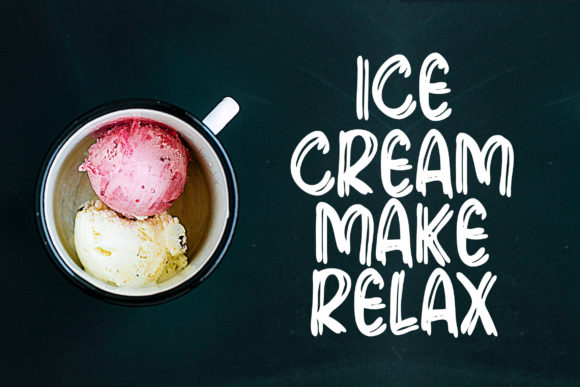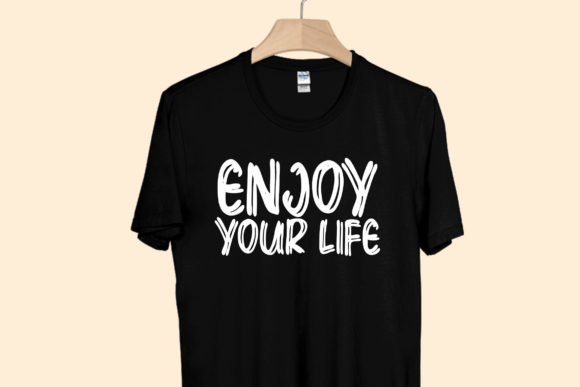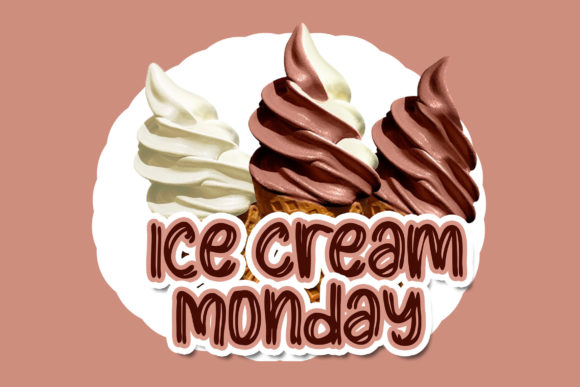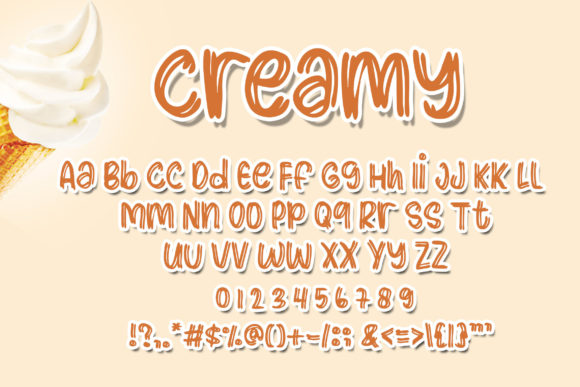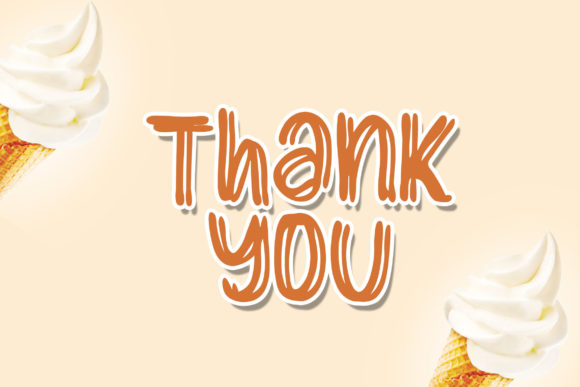
The Creamy Font: A Delicious Addition to Your Design Toolbox
I’ll never forget the time I was working on a project for a client who wanted a font that was both playful and elegant. I had spent hours scouring the internet for the perfect match, but nothing seemed quite right. That was when I stumbled upon the Creamy font, and it instantly became my go-to. In this article, I’ll share my love for this beautiful, brushed handwritten font and provide you with a comprehensive guide on how to make the most of it.
An Honest Review of Creamy Font
What I Love About Creamy Font
- ✨ Cute and Playful: Creamy font has a charming, hand-crafted feel that’s perfect for designs that require a personal touch.
- ✅ Adaptable: Whether you’re working on a logo, a social media post, or a full-scale branding project, Creamy font adapts seamlessly to any design style.
- 💫 Brushed Texture: The subtle brushed texture gives Creamy font a unique, organic feel that’s hard to find in digital fonts.
- 🎨 Versatile: With its wide range of applications, Creamy font is an excellent addition to any design library.
While Creamy font is an excellent choice for many designs, there are a few things to keep in mind:
- ⚠️ Legibility at Small Sizes: Like many script fonts, Creamy can become a bit tricky to read at very small sizes. It’s best to use it at larger sizes (16px and above) for optimal legibility.
- 🤔 Overuse of Swashes: While Creamy font comes with beautiful swashes, overusing them can make your design look cluttered. Use them sparingly to add a touch of elegance.
The Story Behind Creamy Font
Creamy font was designed with the intention of creating a beautiful, adaptable handwritten font that could be used for a wide range of design projects. The designer aimed to create a font that felt both personal and elegant, with a subtle brushed texture that would add a touch of warmth to any design.
Q: What type of designs is Creamy font best suited for?
A: Creamy font is versatile and can be used for a wide range of designs, including logos, social media posts, branding projects, and more.
Q: Is Creamy font available in different weights or styles?
A: Creamy font comes in a single weight, but it has a range of OpenType features like swashes and stylistic alternates that can help you create variations.